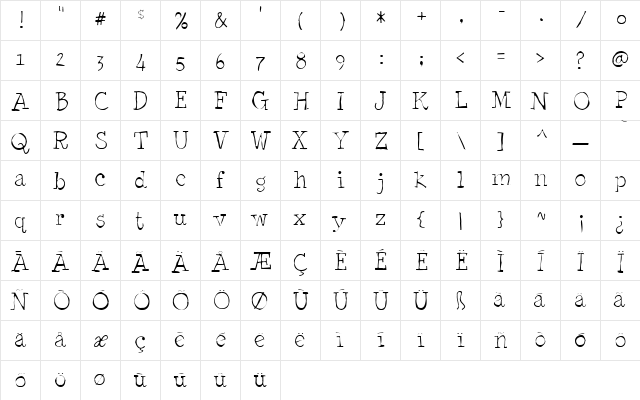
Minya Nouvelle Gaunt Regular
Design Context for Minya Nouvelle Gaunt Typeface
Minya Nouvelle Gaunt is a composed and adaptable typeface that performs quietly and consistently across a wide range of design contexts.